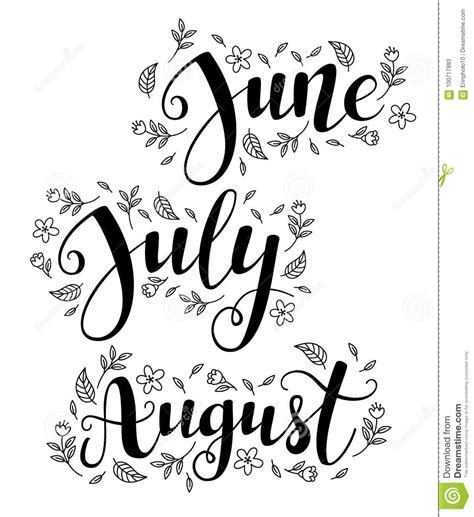
Cute Calligraphy Fonts Alphabet - Hoptrot - A Cute Handwritten Font | Lettering, Hand ... : 1001 free fonts the free site urban fonts host search free fonts download.. See more ideas about fonts alphabet, lettering fonts, calligraphy fonts. Old slavic alphabets and new fonts. Calligraphy is an ancient writing technique using flat edged pens to create artistic lettering using thick and thin lines depending on the direction of the stroke. Download free calligraphy fonts at urbanfonts.com our site carries over 30,000 pc fonts and mac fonts. Archive of freely downloadable fonts.
Alphabet svg fonts, calligraphy font svg, handwritten script cricut font svg, silhouette cameo, digital files, svg dxf eps ai png. Каллиграфические и скриптовые шрифты с кириллицей. It usually involves a nibbed pen or brush. Browse by alphabetical listing, by style, by author or by popularity. Beautiful alphabet monoline floral collection premium vector lettering hand lettering calligraphy brush lettering tuto.
The word calligraphy is derived from greek, meaning beautiful writing.
See more ideas about fonts alphabet, lettering fonts, calligraphy fonts. These beautiful calligraphic script fonts are well connected with great flowing cursive styles suitable for formal, holiday, romantic and wedding type graphic design work. Free calligraphy alphabets, letterings, fonts and writings. Шрифт punch limit font combination. Шрифт mistletoe font duo cyrillic. Alphabet cursif modern calligraphy alphabet calligraphy fonts alphabet tattoo fonts cursive handwriting alphabet letters tattoo tattoo alphabet script fonts cute fonts alphabet. Шрифт hello dina script cyrillic. Unicode has tens of thousands of symbols which. Browse by alphabetical listing, by style, by author or by popularity. Alphabet svg fonts, calligraphy font svg, handwritten script cricut font svg, silhouette cameo, digital files, svg dxf eps ai png. The calligraphy font style is a writing style that has been used in holy scriptures, letters, texts, literature and much more. Beautiful alphabet monoline floral collection premium vector lettering hand lettering calligraphy brush lettering tuto. Collection by jagruti gajera • last updated 8 weeks ago.
Шрифт mistletoe font duo cyrillic. Free calligraphy alphabets, letterings, fonts and writings. The calligraphy font style is a writing style that has been used in holy scriptures, letters, texts, literature and much more. Calligraphy alphabet, calligraphy letters by letter and calligraphy pen. 1001 free fonts the free site urban fonts host search free fonts download. Beautiful alphabet monoline floral collection premium vector lettering hand lettering calligraphy brush lettering tuto. Calligraphy or the art of fancy writing has thousands of according to the designer, the font is an ode to the late 19th century american calligrapher louis madarasz, known as the most skillful penman. All fonts are categorized and can be saved for quick reference and comparison.
All fonts are categorized and can be saved for quick reference and comparison.
Most popular newest 3d aggressive all caps ancient arab asian black block blood bold brand brandname brush bubbly calligraphy cartoon christmas classic comic condensed cool curly cursive curvy cute dark decorative dingbats. All fonts are categorized and can be saved for quick reference and comparison. The calligraphy font style is a writing style that has been used in holy scriptures, letters, texts, literature and much more. 1 2 3 4 5 6 7 8 9 10. It usually involves a nibbed pen or brush. Шрифт hello dina script cyrillic. Unicode has tens of thousands of symbols which. Download free calligraphy fonts at urbanfonts.com our site carries over 30,000 pc fonts and mac fonts. Bundle fonts, digital font, font download, calligraphy font, handwritten font, wedding font, modern font, brush font, font. See more ideas about fonts alphabet, lettering fonts, calligraphy fonts. 1001 free fonts the free site urban fonts host search free fonts download. Шрифт mistletoe font duo cyrillic. Cute, beautiful and pretty fonts.